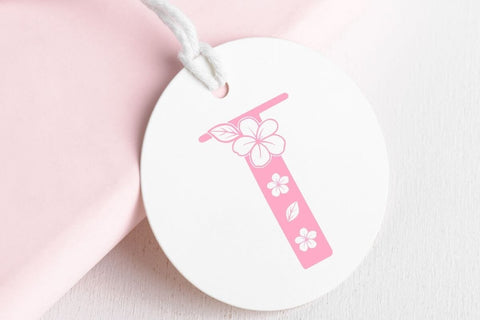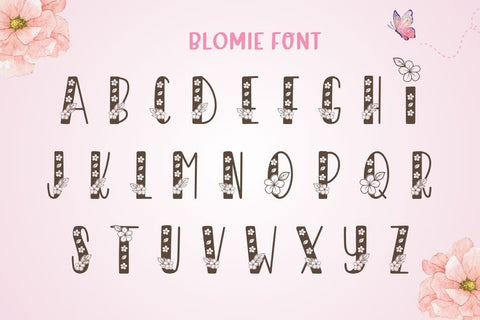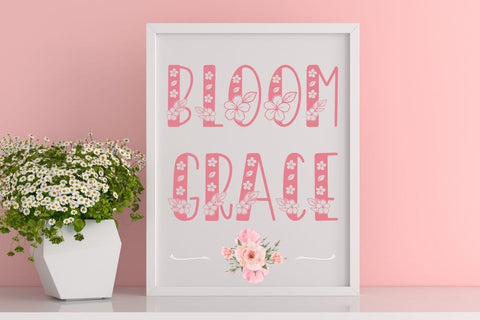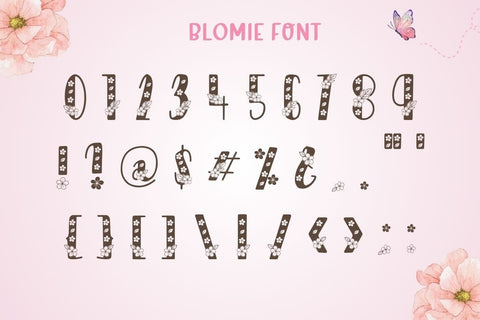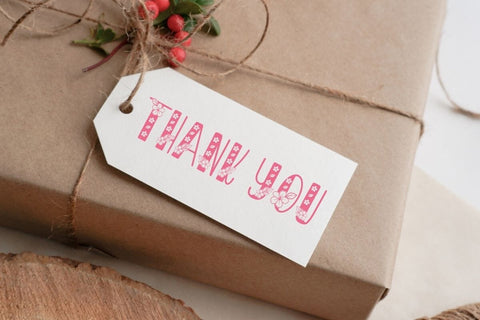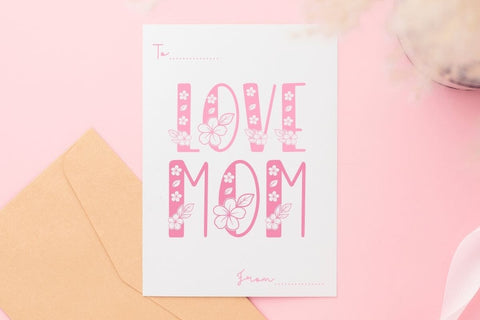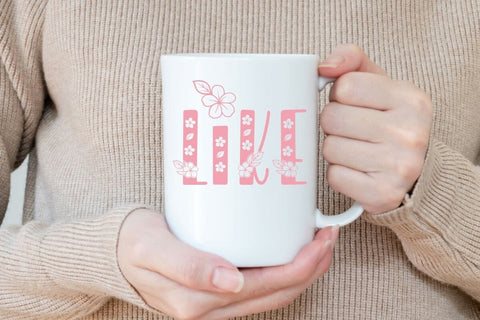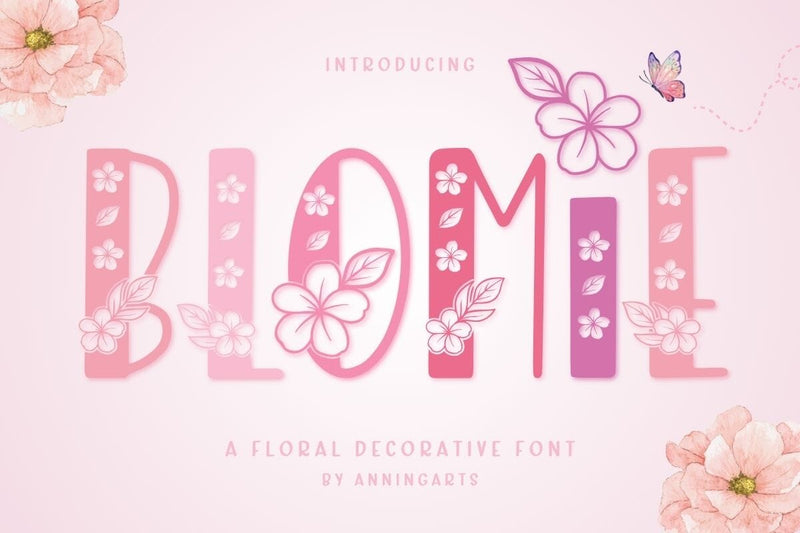
Blomie - Decorative Floral Font | Spring Wedding Craft Font
Bring spring to your designs with Blomie, a floral display font with a whimsical twist.
Each character is designed with blooming details, perfect for invitations, seasonal DIYs, and Cricut crafts.
✔ Perfect for: Baby showers, weddings, quotes, logos, gift tags